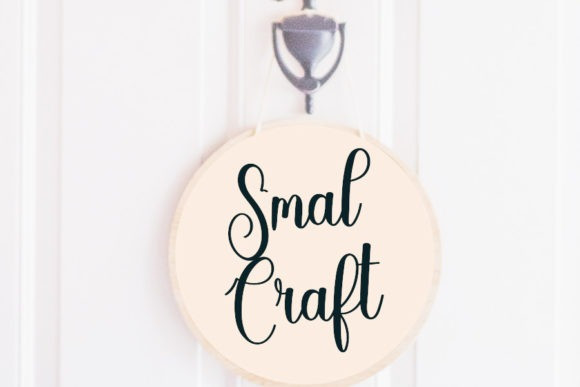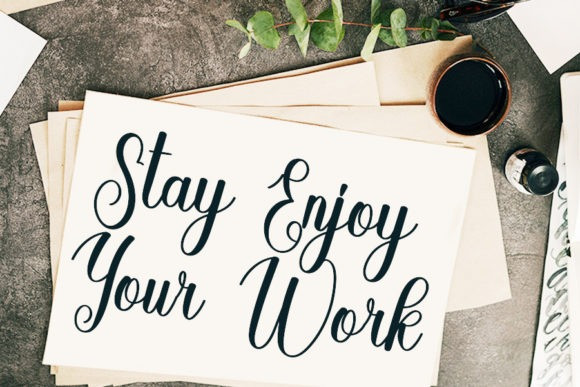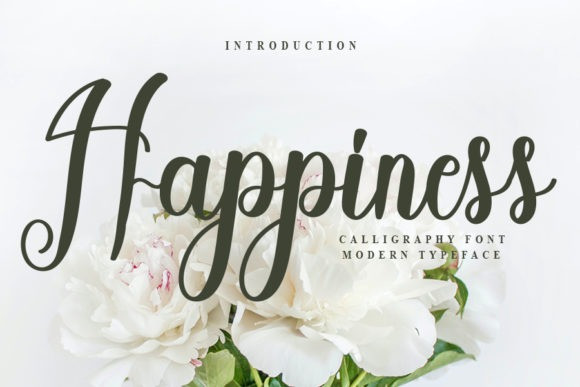
Happines Font
Happines Font by FreshTypeINK 24,127 downloads
Happines Font
Happiness Calligraphy Font is a flowing and graceful script font. Fall for its ravishing style and use it to create gorgeous wedding invitations, beautiful stationary art, eye-catching social media posts, and much more!